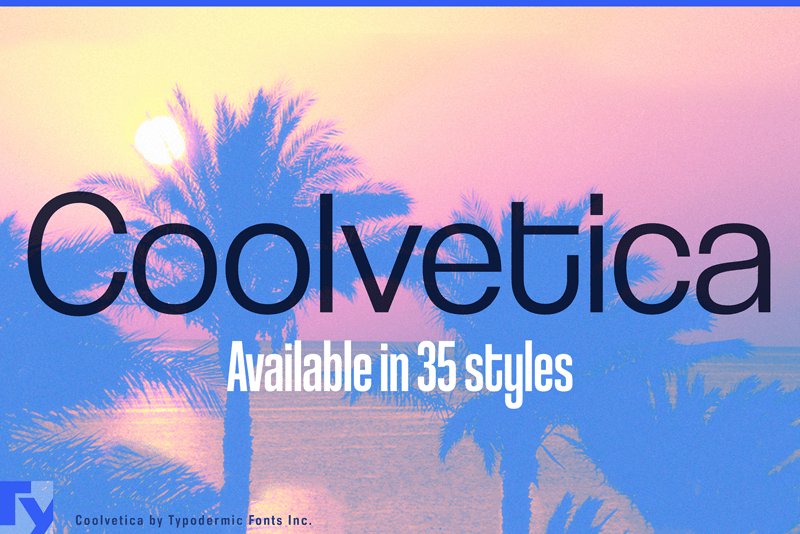
Coolvetica Font
Coolvetica is a sans-serif typeface, inspired by logotypes from the 1970s. This was an era where everyone was modifying Helvetica—not only logo designers but even font designers were into outlandish Helvetica mods. Phototype catalogs were loaded with playful variations of the already ubiquitous typeface. Coolvetica recreates that retro custom display lettering style with extra-tight kerning and funky curls. This is a true display typeface, intended for unconventional short passages, headings and titles rather than dull paragraphs of text.
The condensed, compressed, and crammed styles use a flat-sided approach—a multi-width strategy that’s rare nowadays but was common in the twentieth century. Coolvetica includes mathematical symbols, OpenType fractions, and numeric ordinals. Most Latin-based European, Vietnamese, Greek, and most Cyrillic-based writing systems are supported, including the following languages. Afaan Oromo, Afar, Afrikaans, Albanian, Alsatian, Aromanian, Aymara, Azerbaijani, Bashkir, Bashkir (Latin), Basque, Belarusian, Belarusian (Latin), Bemba, Bikol, Bosnian, Breton, Bulgarian, Buryat, Cape Verdean, Creole, Catalan, Cebuano, Chamorro, Chavacano, Chichewa, Crimean Tatar (Latin), Croatian, Czech, Danish, Dawan, Dholuo, Dungan, Dutch, English, Estonian, Faroese, Fijian, Filipino, Finnish, French, Frisian, Friulian, Gagauz (Latin), Galician, Ganda, Genoese, German, Gikuyu, Greenlandic, Guadeloupean Creole, Haitian Creole, Hawaiian, Hiligaynon, Hungarian, Icelandic, Igbo, Ilocano, Indonesian, Irish, Italian, Jamaican, Kaingang, Khalkha, Kalmyk, Kanuri, Kaqchikel, Karakalpak (Latin), Kashubian, Kazakh, Kikongo, Kinyarwanda, Kirundi, Komi-Permyak, Kurdish, Kurdish (Latin), Kyrgyz, Latvian, Lithuanian, Lombard, Low Saxon, Luxembourgish, Maasai, Macedonian, Makhuwa, Malay, Maltese, Māori, Moldovan, Montenegrin, Nahuatl, Ndebele, Neapolitan, Norwegian, Novial, Occitan, Ossetian (Latin), Papiamento, Piedmontese, Polish, Portuguese, Quechua, Rarotongan, Romanian, Romansh, Russian, Rusyn, Sami, Sango, Saramaccan, Sardinian, Scottish Gaelic, Serbian, Serbian (Latin), Shona, Sicilian, Silesian, Slovak, Slovenian, Somali, Sorbian, Sotho, Spanish, Swahili, Swazi, Swedish, Tagalog, Tahitian, Tajik, Tatar, Tetum, Tongan, Tshiluba, Tsonga, Tswana, Tumbuka, Turkish, Turkmen (Latin), Tuvaluan, Ukrainian, Uzbek, Uzbek (Latin), Venda, Venetian, Vepsian, Vietnamese, Võro, Walloon, Waray-Waray, Wayuu, Welsh, Wolof, Xavante, Xhosa, Yapese, Zapotec, Zarma, Zazaki, Zulu and Zuni.